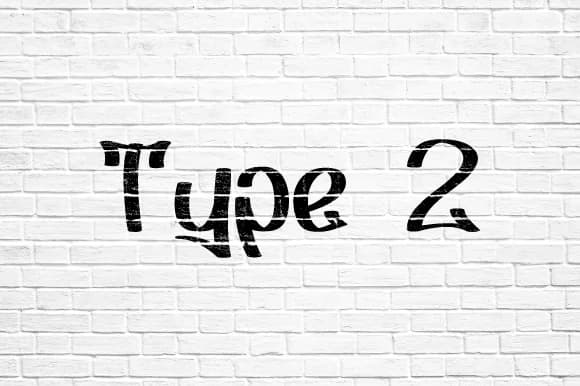
About Type 2 Font
Type 2 Specifications
| Style | Graffiti |
| Designer | Nermin Kahrimanovic |
Type 2 Font is a script font that shines as a display or heading face. Pair it with a clean sans-serif or serif font for body text β the contrast creates a clear hierarchy while the two styles stay balanced and easy to read.
Type 2 Font
by Nermin K